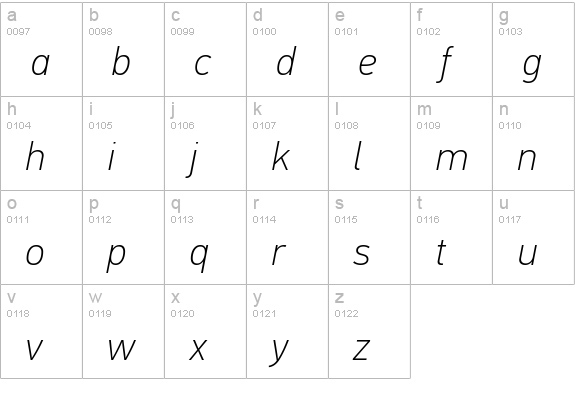
PFDinTextPro-ThinItalic Font Details
PFDinTextPro-ThinItalic is a sleek and elegant font that exudes sophistication and modernity. With its thin and italic design, this font is perfect for adding a touch of elegance to any project. Whether you are designing a wedding invitation, creating a logo, or crafting a stylish website, PFDinTextPro-ThinItalic will elevate your work to the next level. The best part? PFDinTextPro-ThinItalic is available for free download at FontsMarket.com. This means that you can easily access this stunning font without any cost, making it a valuable addition to your font collection. Don't miss out on the opportunity to enhance your designs with this beautiful and versatile font. Download PFDinTextPro-ThinItalic today and take your projects to new heights!